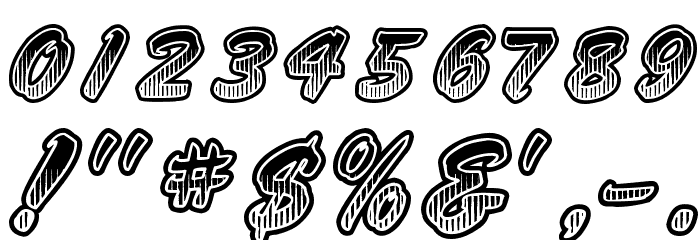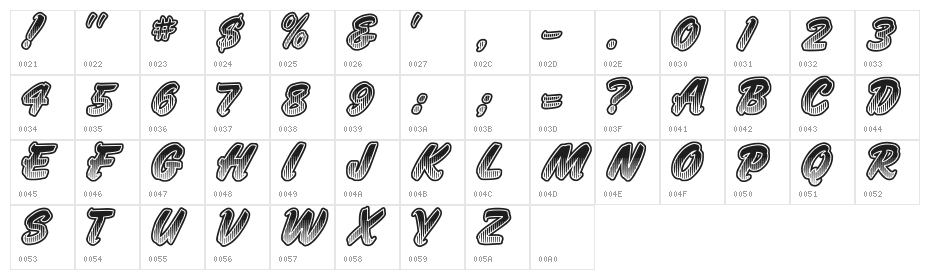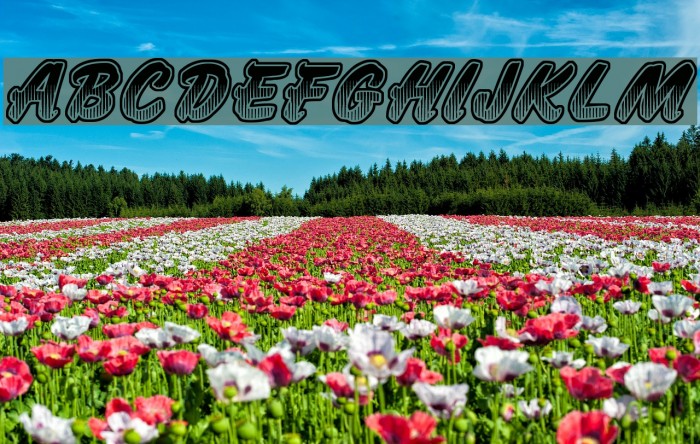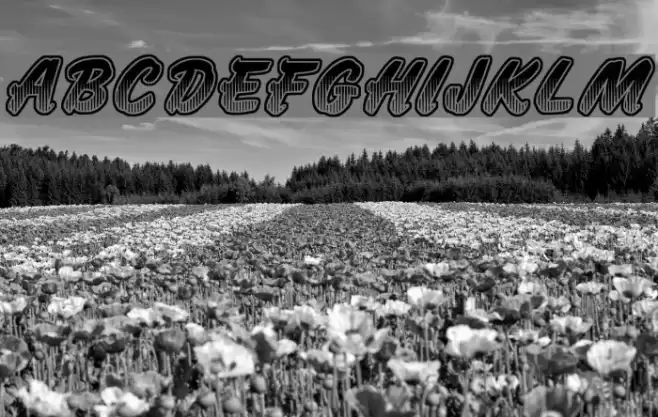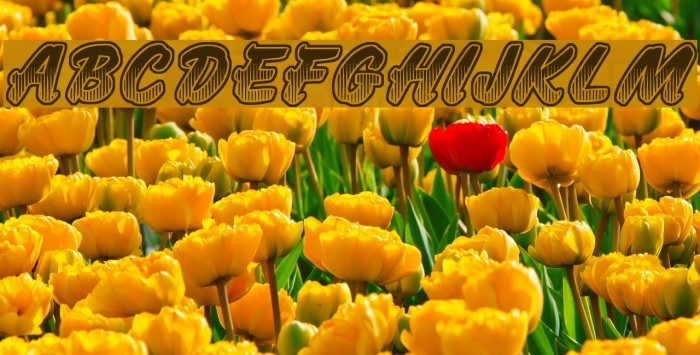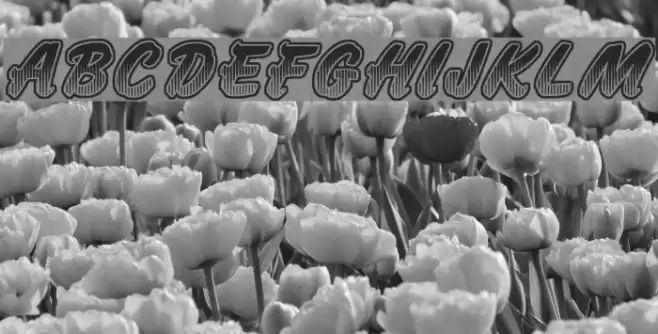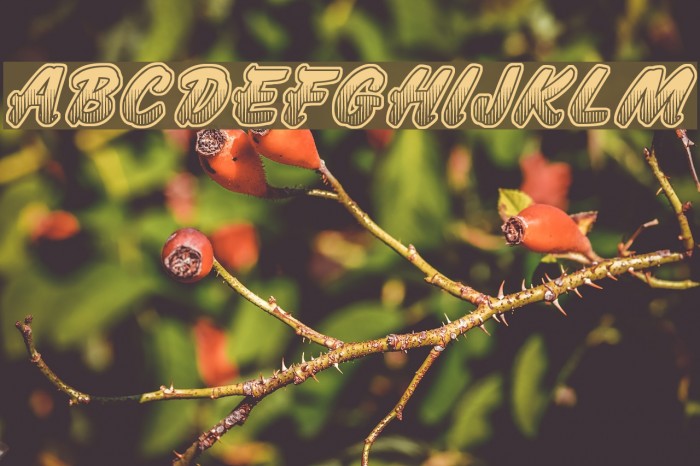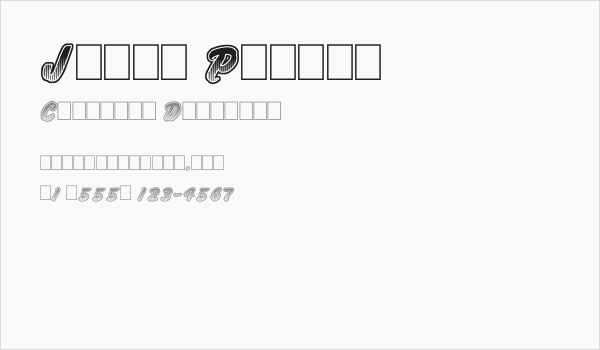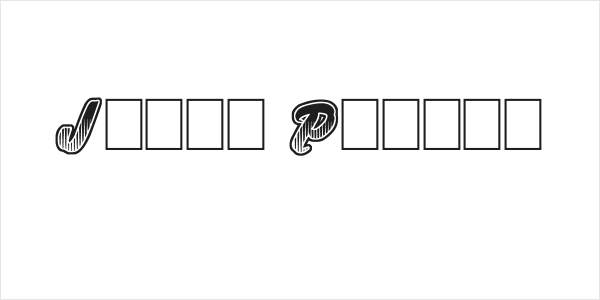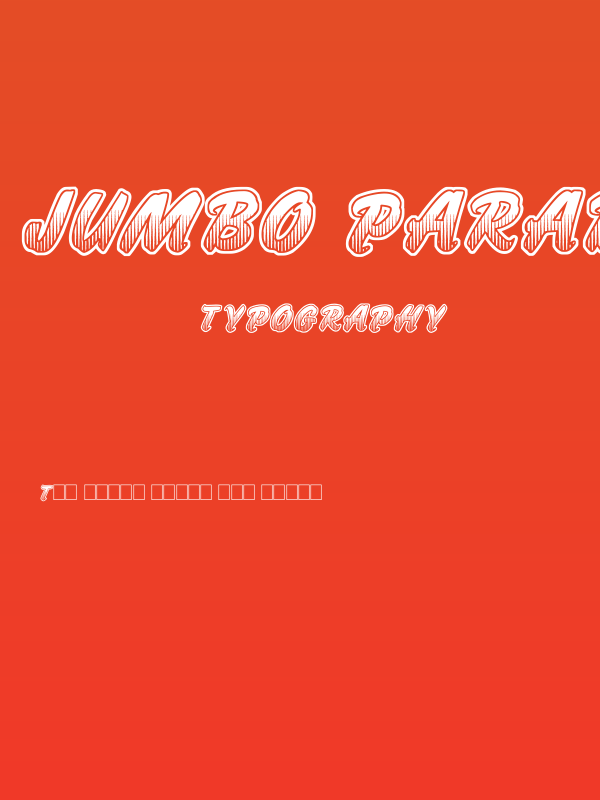
Jumbo Parade Font
Jumbo Parade Description
This font features a bold, decorative style with a playful and dynamic appearance. Each character is outlined with a thick black border, filled with diagonal lines that add texture and depth. The letters have a slightly slanted, italicized form, giving them a sense of movement and energy. The uppercase and lowercase letters maintain a consistent style, with the numbers and special characters following suit. This font's unique design makes it stand out, perfect for eye-catching displays or creative projects. Its boldness and decorative elements make it unsuitable for body text but ideal for headlines or logos.
| Proposed Projects | Ideal for posters, event flyers, branding materials, and any project requiring a bold, eye-catching typeface. |